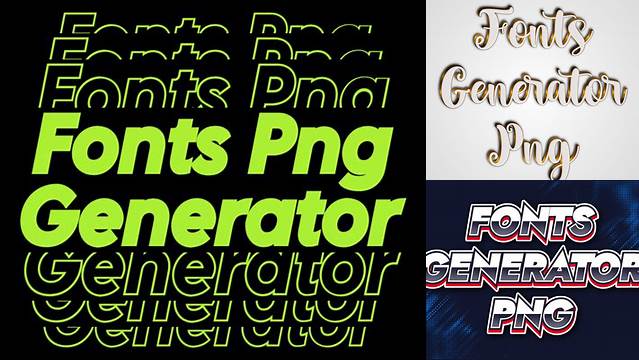
Text Generator Fonts: PNG Images For Your Projects
Hey guys! Ever found yourself needing some cool, unique text for a project but didn't want to spend hours designing it yourself? That's where text generator fonts and PNG images come in handy. This guide will dive deep into the world of text generator fonts, exploring how you can use them to create stunning visuals, especially with PNG images. We'll cover everything from the basics to more advanced tips and tricks. So, let's get started!
What are Text Generator Fonts?
At its core, a text generator font is a tool that allows you to quickly and easily create stylized text. Forget about manually adjusting each letter or struggling with complex design software. These generators often come with a variety of pre-designed styles, effects, and customization options. This means you can produce eye-catching text for anything from social media graphics to website headers in just a few clicks. The beauty of using these fonts lies in their versatility and time-saving capabilities. You can experiment with different styles, tweak settings to match your brand, and generate text variations effortlessly.
Why Use PNG Images for Generated Text?
Now, why focus on PNG images? PNG stands for Portable Network Graphics, and it's a file format known for its lossless compression and support for transparency. This is crucial when dealing with generated text, especially if you want to overlay it on different backgrounds or use it in complex designs. Unlike JPEGs, PNGs don't lose quality when compressed, ensuring your text remains crisp and clear. The transparency feature allows you to place your generated text seamlessly onto any background without awkward white boxes around it. For projects requiring professional-looking results, PNG is definitely the way to go.
30 Subheadings on Text Generator Fonts and PNG Images
Let's break down everything you need to know about using text generator fonts and PNG images effectively. We'll cover a range of topics, from the basics of choosing the right font to advanced techniques for incorporating generated text into your designs. Get ready to level up your text game!
H2: Understanding the Basics of Text Generator Fonts
Okay, so let's get down to the nitty-gritty of text generator fonts. These aren't your typical font files that you install on your computer. Instead, they're often web-based tools or software applications that provide a user interface for creating text with various styles and effects. Think of them as a bridge between your creative ideas and a polished, visual output. The best part? Many are incredibly user-friendly, even if you have zero design experience. You simply type in your text, choose a style, and boom – instant visual goodness.
H3: Types of Text Generator Fonts Available
There's a whole universe of text generator fonts out there, guys! You've got everything from simple, elegant styles to bold, attention-grabbing designs. Some specialize in retro looks, others in futuristic vibes, and some even mimic hand-drawn lettering. Different generators use various technologies and algorithms to create these effects. Some are based on pre-designed templates, while others use more dynamic and customizable systems. Exploring the different types is key to finding the perfect fit for your project.
H3: Key Features to Look for in a Text Generator
When you're hunting for the perfect text generator, keep an eye out for a few key features. First, customization options are a must. Can you change the font size, color, spacing, and add shadows or outlines? The more control you have, the better. Also, consider the variety of styles available. A good generator should offer a range of options to suit different needs. Finally, think about the output format. Does it easily export to PNG with transparency? That's super important!
H3: Free vs. Paid Text Generators: Which is Right for You?
This is a classic debate, right? Free text generators are fantastic for quick projects or trying out different styles. They often offer a decent selection of features, but might have limitations like watermarks or fewer customization options. Paid generators, on the other hand, usually come with a broader range of styles, advanced features, and higher-resolution outputs. If you're serious about using generated text regularly or need professional-quality results, investing in a paid option might be worth it.
H2: The Power of PNG Images for Text
We touched on this earlier, but let's really dig into why PNG images are the bomb for generated text. It's all about quality and versatility, guys. You want your text to look crisp and clean, no matter where you use it. And you definitely don't want those ugly white boxes around your letters when you're overlaying them on a background. PNG solves both of these problems.
H3: Understanding PNG Transparency
Transparency is the secret sauce of PNG images. It means that the background of your image is invisible, allowing the text to blend seamlessly with whatever you put it on. This is especially useful for logos, watermarks, and any text that needs to be overlaid on photos or graphics. Without transparency, you're stuck with a solid background that can clash with your design. PNG makes everything look polished and professional.
So there you have it, guys! A deep dive into the world of text generator fonts and PNG images. Hopefully, this guide has given you a solid understanding of how to use these tools to create stunning visuals for your projects. Remember, the key is to experiment, have fun, and always prioritize quality and readability. Now go out there and make some awesome text!